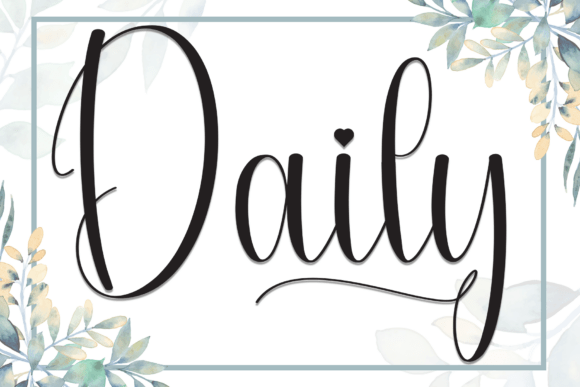
Introducing Daily Font: Elevate Your Design with Elegance and Modern Flair
In the world of typography, fonts play a crucial role in conveying the tone and personality of a brand, project, or message. Among the numerous fonts available, Daily Font stands out as a stylish handwritten script font that seamlessly blends elegance with a modern twist. This beautiful typeface is designed to bring warmth, sophistication, and a personal touch to various applications, including branding, invitations, social media, and more.
The Essence of Daily Font
Daily Font is a carefully crafted handwritten script font that exudes a sense of refinement and luxury. Its flowing strokes and organic curves create a visually appealing aesthetic that can instantly elevate the visual identity of any project. The font’s unique charm lies in its ability to balance elegance with a modern flair, making it an excellent choice for designers seeking to add a touch of sophistication to their work.
Key Features of Daily Font
- Elegant and Modern Design: Daily Font boasts a stylish and contemporary design that is sure to capture the attention of your audience.
- Handwritten Script: The font’s handwritten script style adds a personal touch to any project, making it ideal for invitations, social media, and branding applications.
- Flowing Strokes and Organic Curves: The font’s flowing strokes and organic curves create a sense of warmth and sophistication, setting it apart from other fonts.
- Versatile: Daily Font is suitable for a wide range of applications, including branding, invitations, social media, and more.
Applications of Daily Font
Daily Font’s versatility and elegance make it an excellent choice for various applications. Here are some of the ways you can use this beautiful font:
- Branding: Establish a strong visual identity for your brand with Daily Font. Its elegant and modern design makes it perfect for logos, business cards, and letterheads.
- Invitations: Add a touch of sophistication to your invitations, whether it’s for a wedding, birthday party, or corporate event.
- Social Media: Elevate your social media presence with Daily Font. Use it to create engaging graphics, quotes, and posts that resonate with your audience.
- Advertising: Daily Font’s unique charm makes it an excellent choice for advertising materials, such as flyers, brochures, and posters.
Benefits of Using Daily Font
Using Daily Font can bring numerous benefits to your design projects. Here are some of the advantages of incorporating this beautiful font into your work:
- Unique Visual Identity: Daily Font can help you establish a distinct visual identity that sets you apart from others.
- Elegance and Sophistication: The font’s elegant and sophisticated design can add a touch of luxury to your projects.
- Versatility: Daily Font’s versatility makes it suitable for a wide range of applications, from branding to social media.
- Easy to Read: The font’s clear and readable design ensures that your message is conveyed effectively.
Tips for Using Daily Font Effectively
To get the most out of Daily Font, here are some tips to keep in mind:
- Use it Sparingly: Use Daily Font sparingly to avoid overwhelming your design. It’s best used as an accent font to add a touch of elegance.
- Pair it with Other Fonts: Pair Daily Font with other fonts to create a unique visual identity. You can use a sans-serif font as a complement to Daily Font.
- Experiment with Colors: Experiment with different colors to find the perfect combination that complements your design.
- Pay Attention to Kerning: Pay attention to kerning to ensure that the font is evenly spaced and visually appealing.
Daily Font is a beautiful handwritten script font that combines elegance with a modern flair. Its flowing strokes and organic curves bring warmth and sophistication to any project, making it an excellent choice for branding, invitations, social media, and more. With its versatility, elegance, and ease of use, Daily Font is sure to become a staple in your design toolkit.